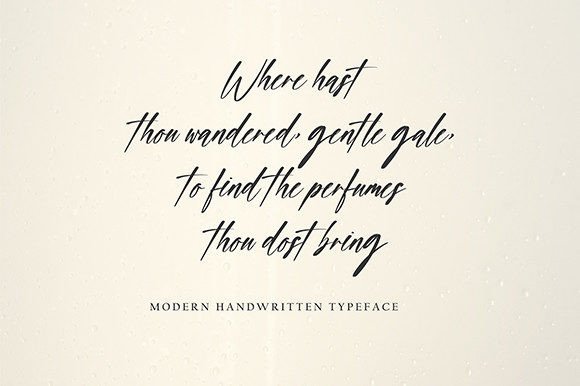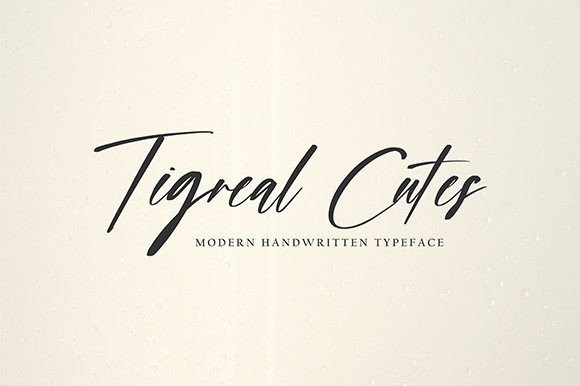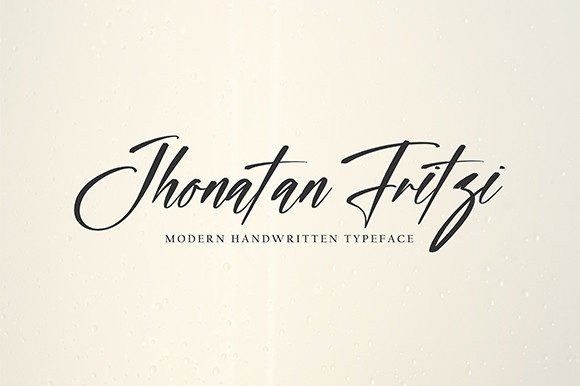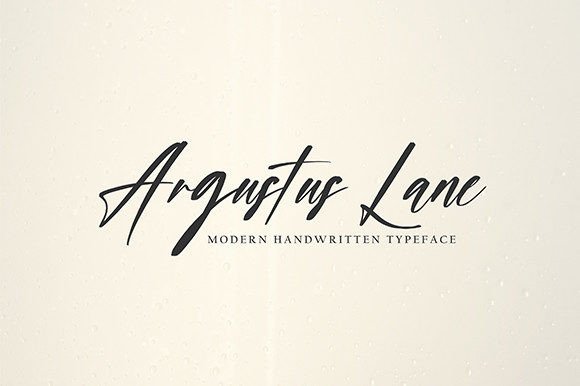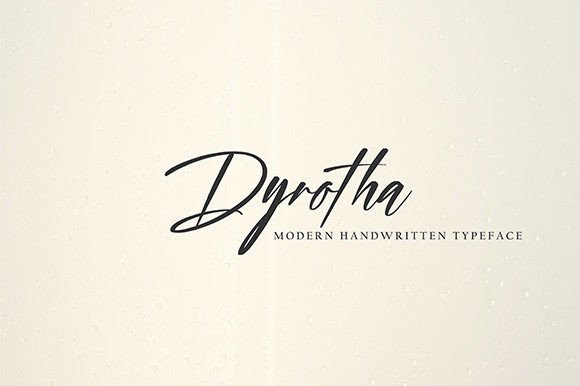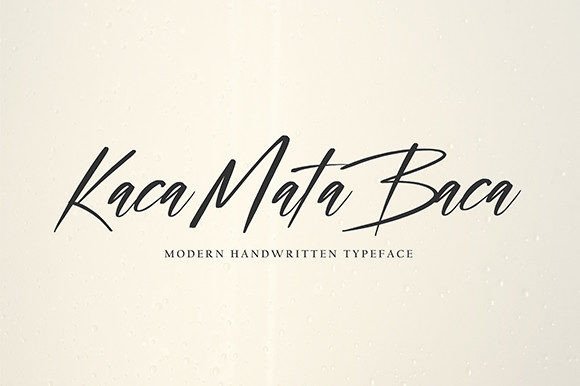
Sunttolayo Font
About Sunttolayo Font
Sunttolayo is a script font with a new style. This typeface will be perfect for many different projects such as quotes, logos, blog headers, posters, banding, letters, invitations, stationery, etc.